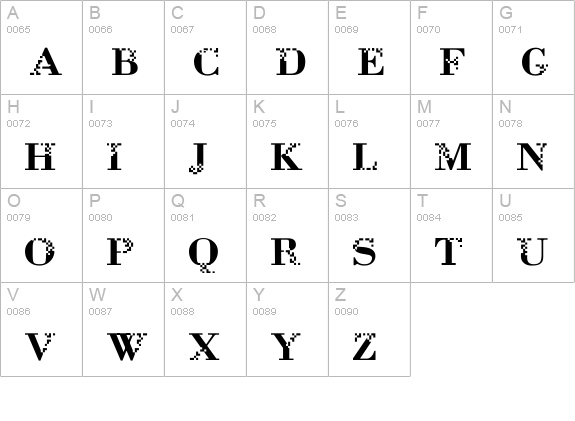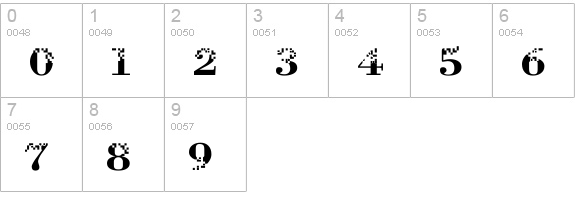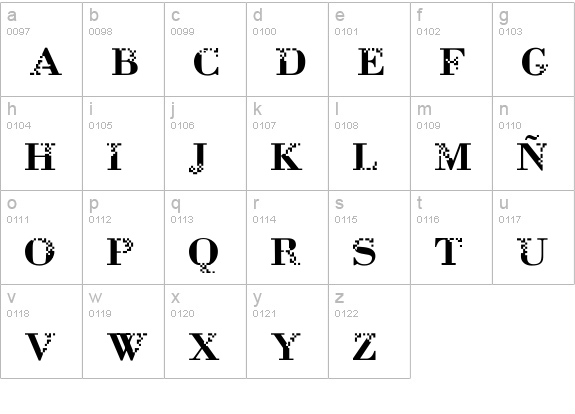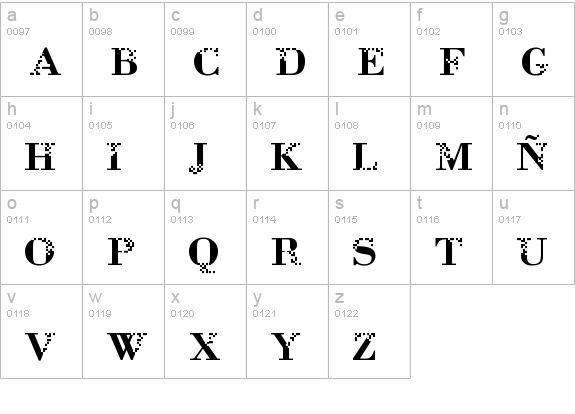
Neurotoxin Font Details
Neurotoxin font is a captivating and modern typeface that exudes a sense of edgy sophistication. Its sleek and futuristic design makes it perfect for a wide range of creative projects, from branding to editorial design. The sharp angles and bold lines of Neurotoxin font give any text a powerful and dynamic appearance, ensuring that your message will stand out. What makes Neurotoxin font even more appealing is that it is completely free to download. Yes, you read that right - you can get your hands on this striking font at no cost at all! Simply head over to FontsMarket.com and start using Neurotoxin font in your projects today. With its unique style and versatility, Neurotoxin font is sure to make a bold statement and elevate your designs to the next level.